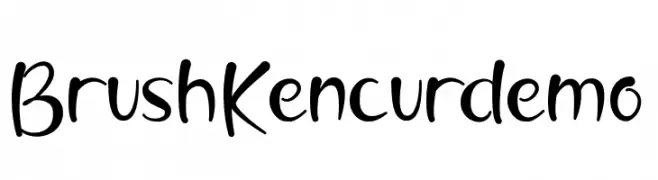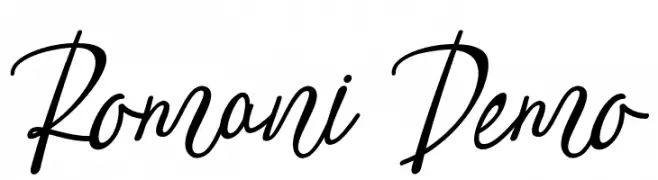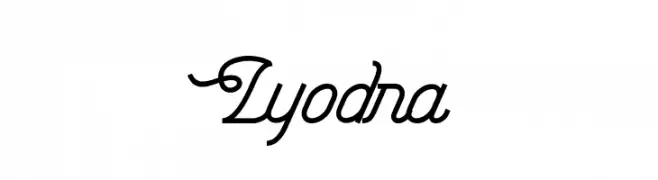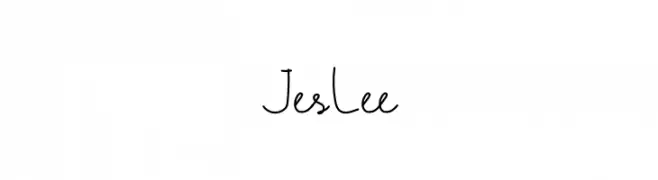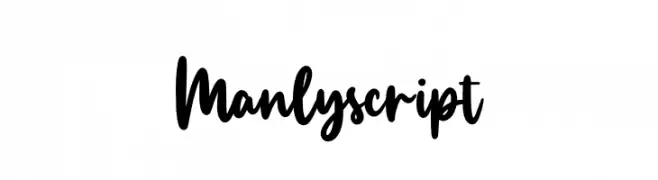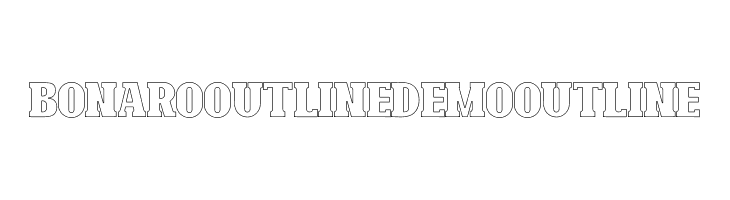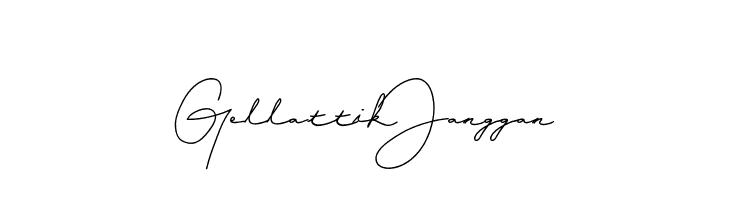
A playful brush script font with fluid, dynamic strokes and a hand-drawn quality.
An elegant script font with intricate swashes and a classic calligraphic style.
A modern, elegant script font with fluid, cursive letterforms.
A fluid and elegant script font with a dynamic, handwritten style.
An elegant script font with decorative swashes and smooth, connected lowercase letters.
A playful, handwritten font with a whimsical and casual style.
A bold, geometric font with a blocky, angular design.
A bold, expressive script font with flowing, cursive letterforms.
An elegant, high-contrast italic font with a refined and stylish appearance.
A dynamic and flowing script font with elegant cursive letterforms.